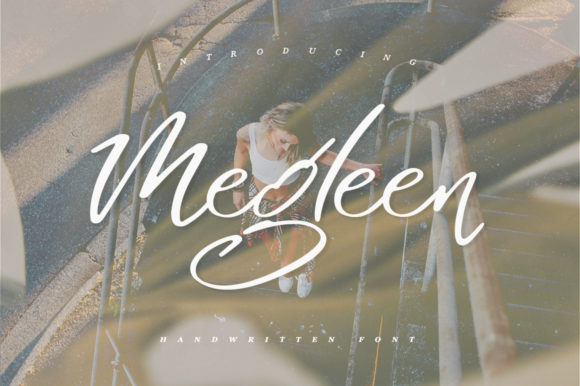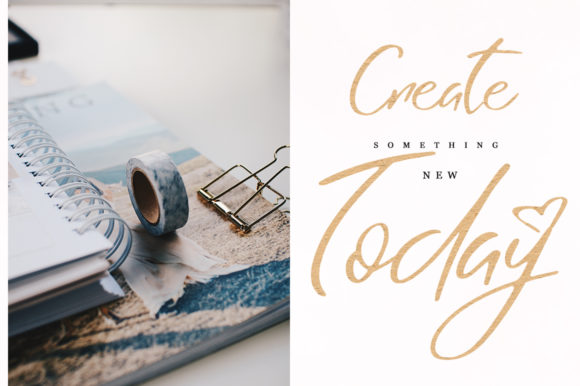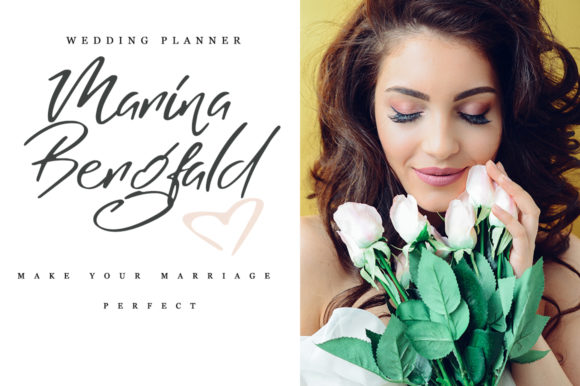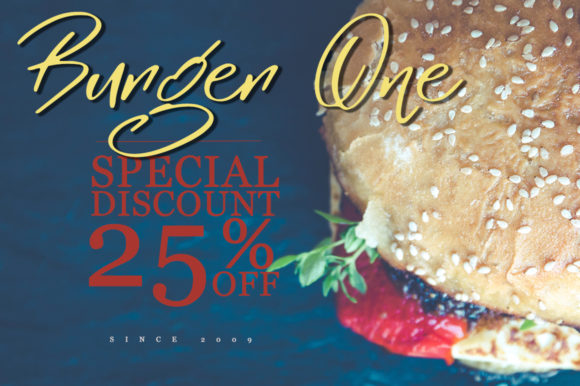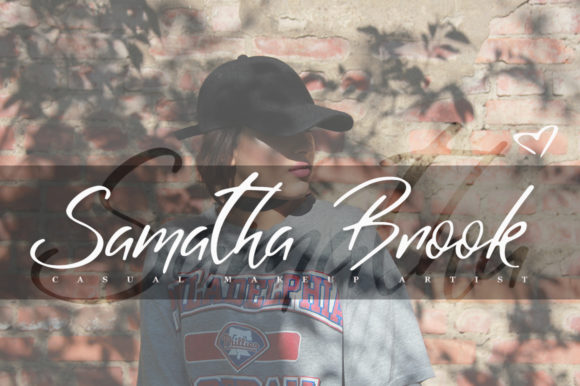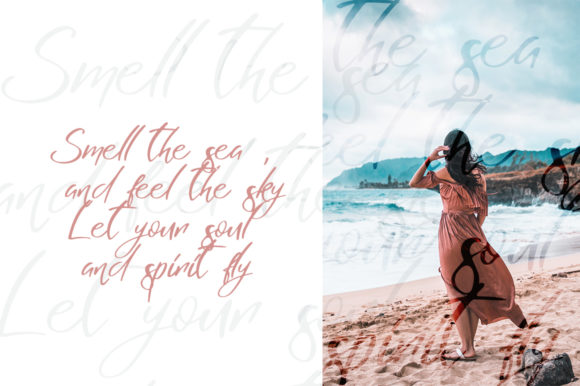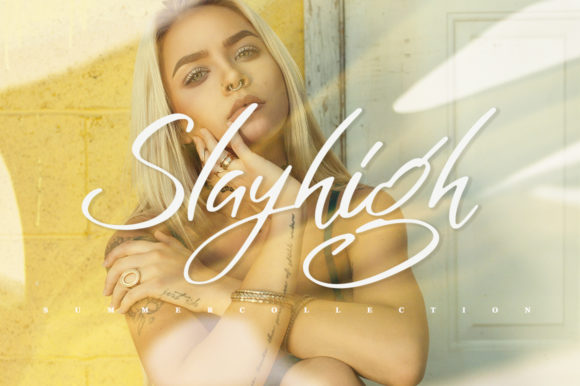
Megleen Font
About Megleen Font
Megleen is a unique and bold handwritten signature font. Get inspired by its contemporary charm and use it for any design project that needs an authentic touch.